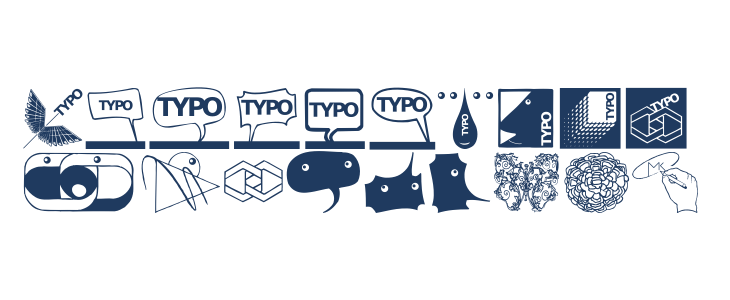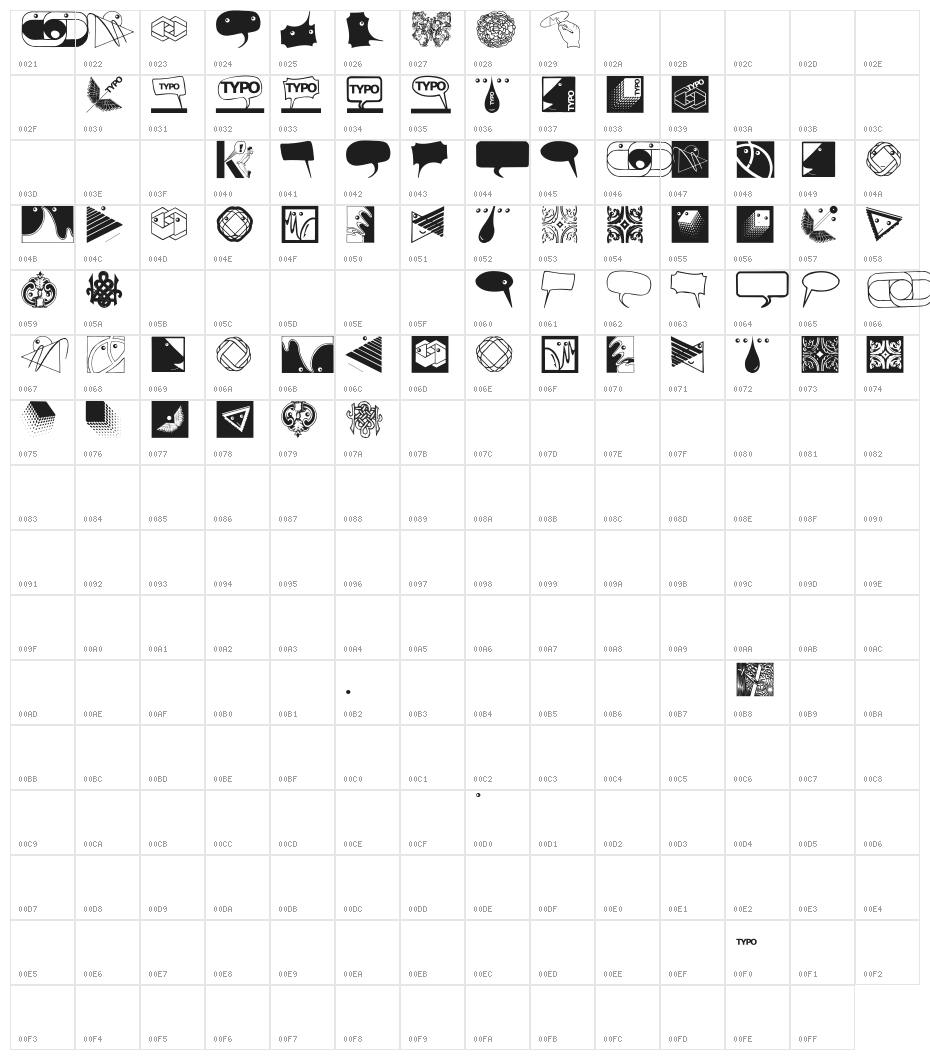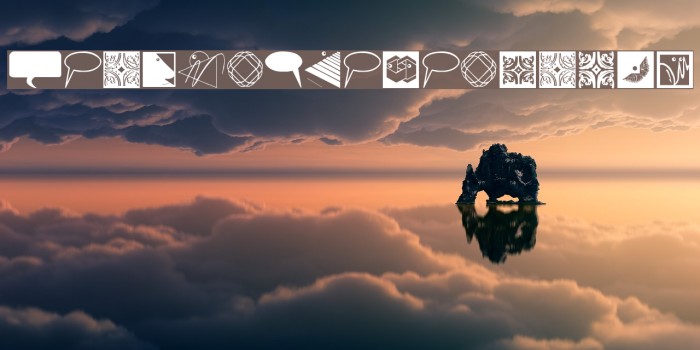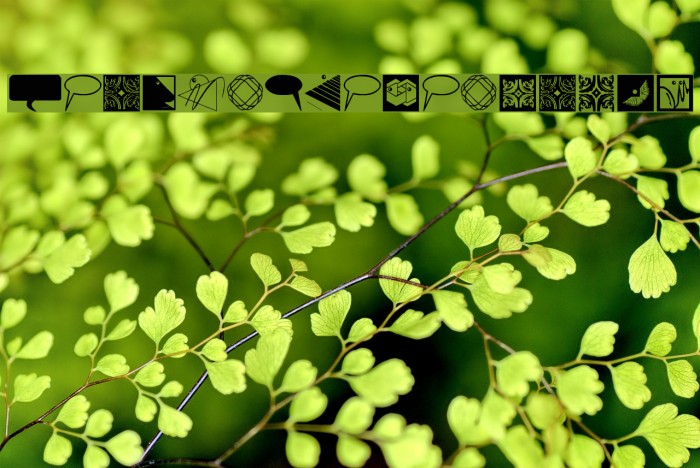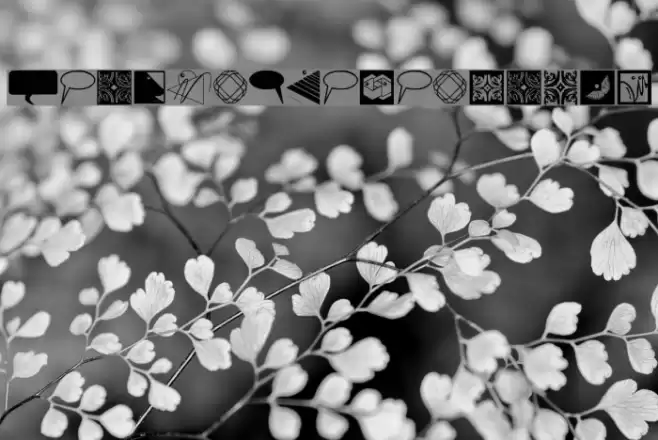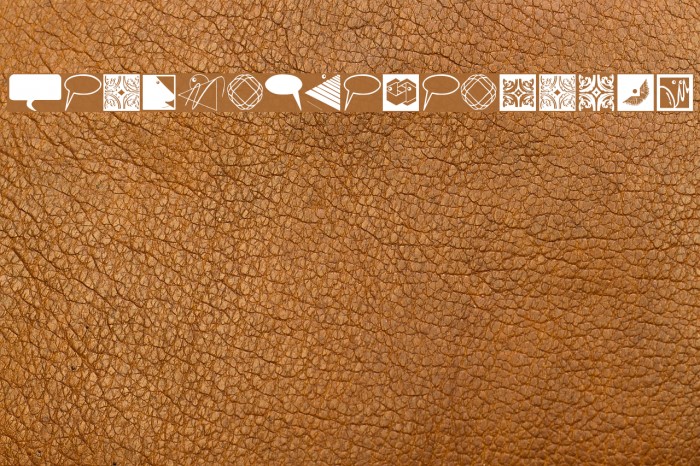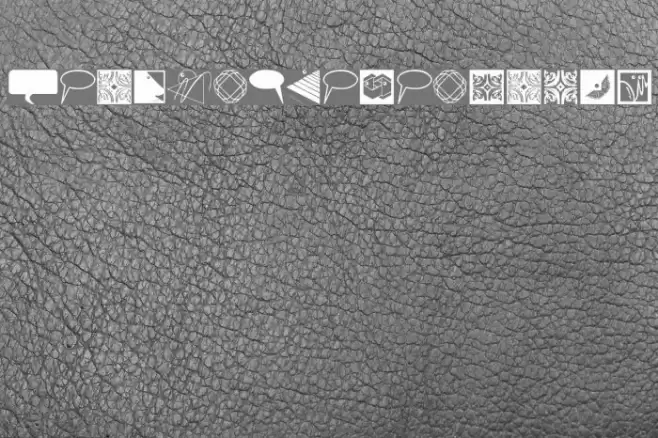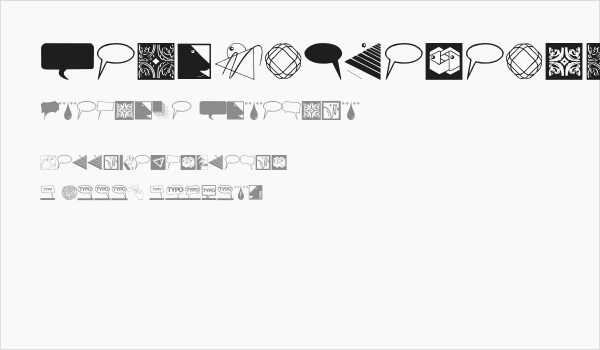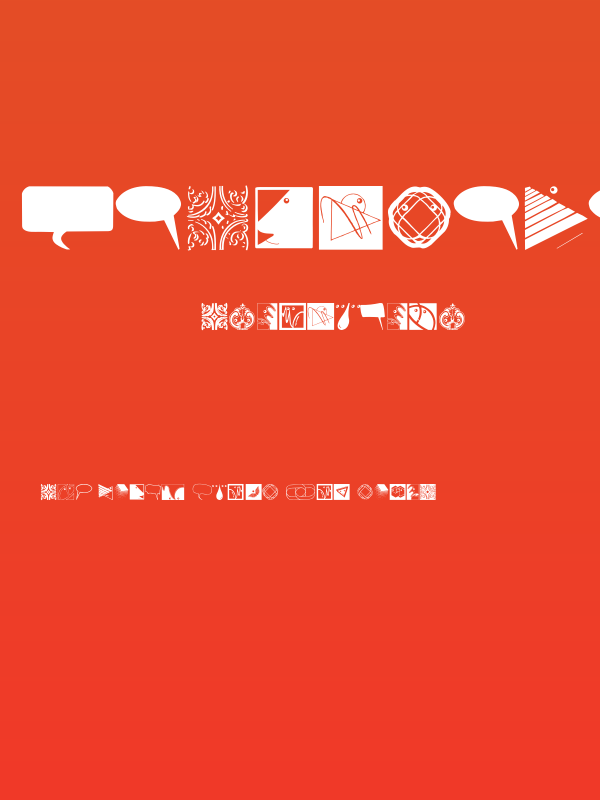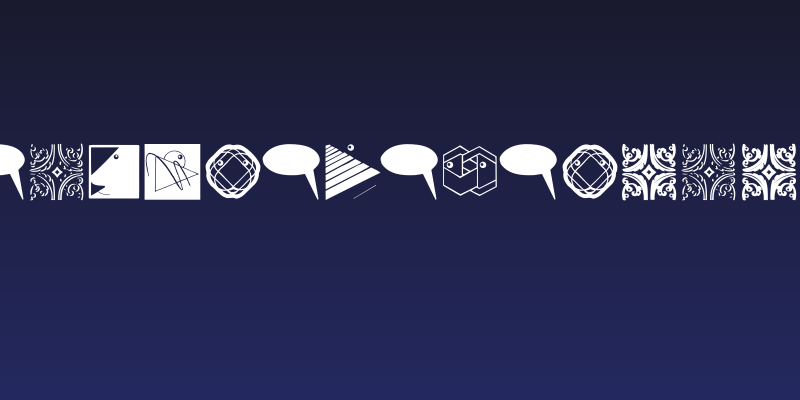
DesignElementsTwo Font
DesignElementsTwo Description
A highly decorative and eclectic dingbat set featuring a mix of abstract shapes, speech bubbles, geometric forms, ornate flourishes, and illustrative icons. The glyphs are bold, with both filled and outlined styles, and include a variety of motifs such as birds, pizza slices, cubes, and intricate patterns. The set is visually dynamic, with a strong black-and-white contrast and playful, artistic elements.
| Overall Style | Decorative, Modern, Playful, Artistic |
| Use Case | Icons, visual accents, branding, creative design projects |
| Proposed Projects | Posters, branding, packaging, editorial design, digital stickers, creative layouts, and visual accents. |